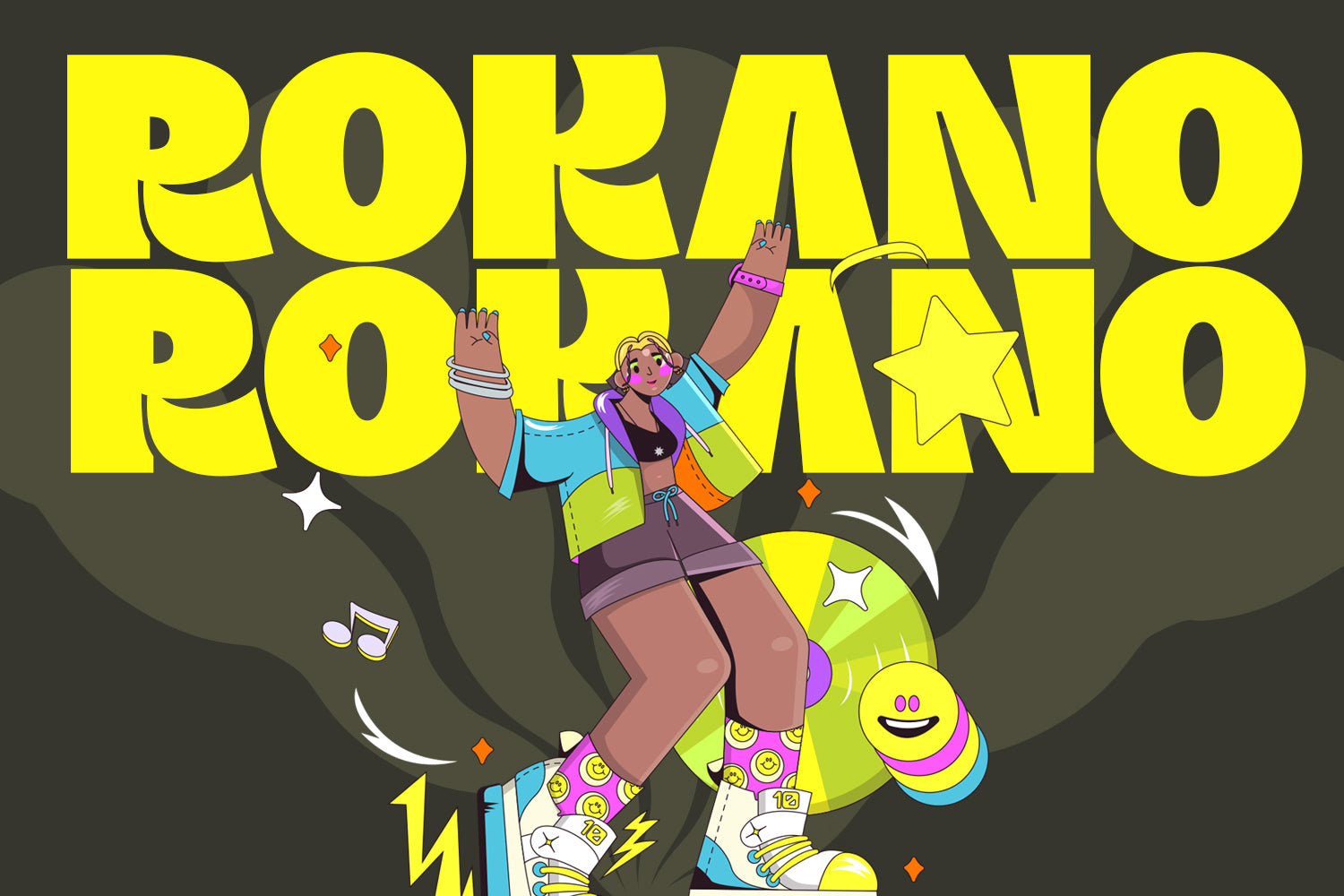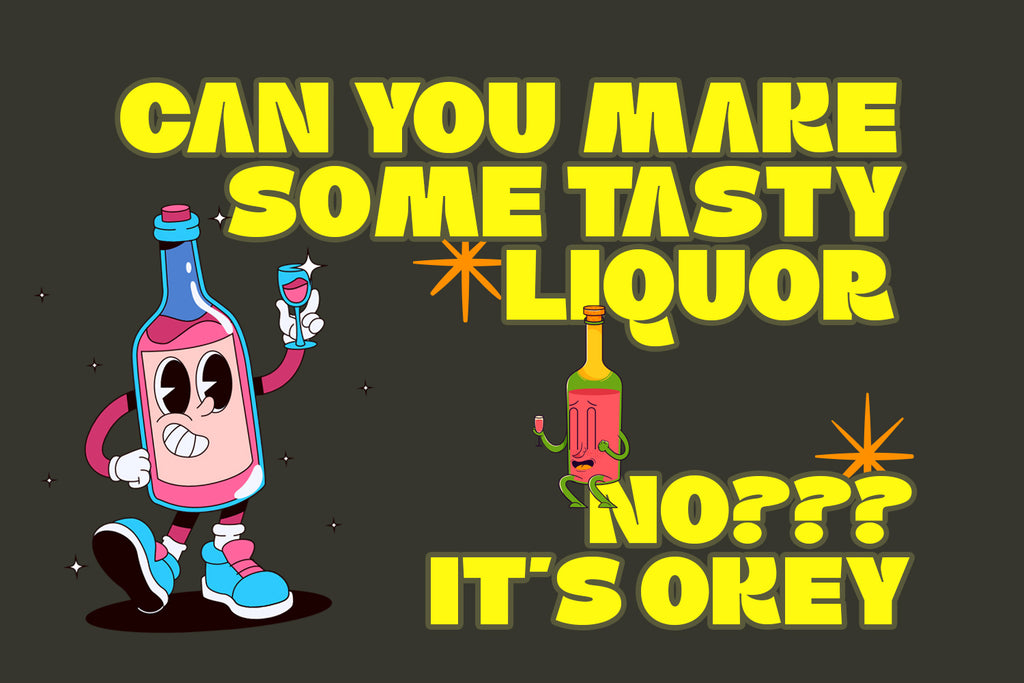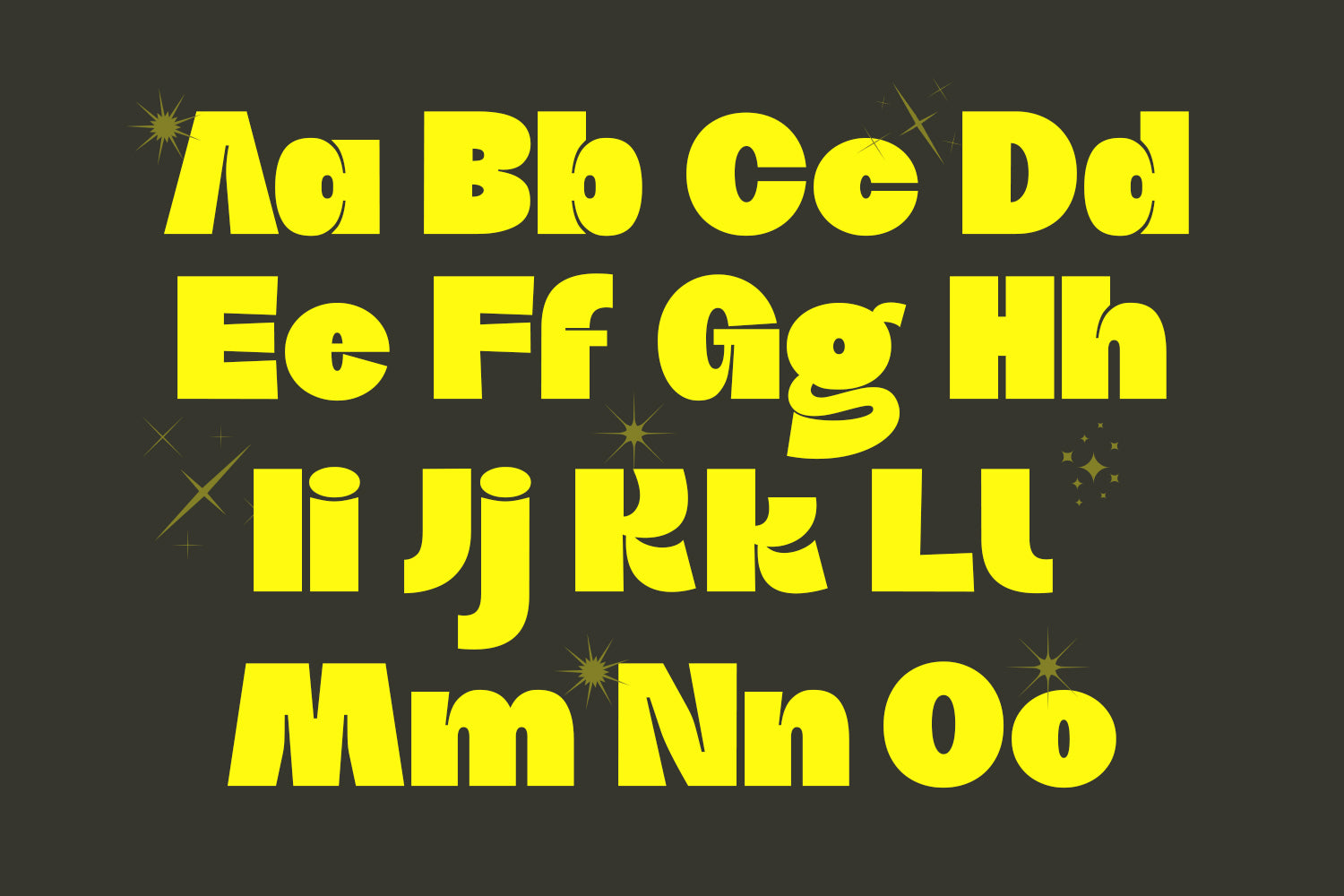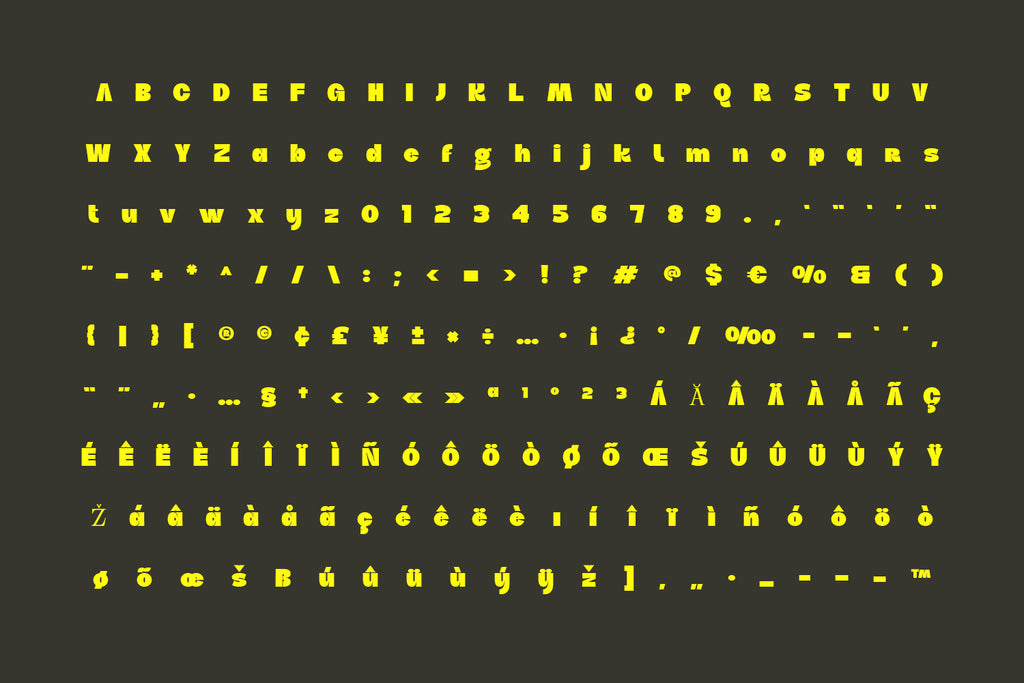
Rokano Funky Typeface
Rokano is a funky, bold display font that brings instant personality and flair to any design. With its playful curves and retro-inspired style, Rokano is perfect for projects that need to stand out and make a statement.
Whether you're designing logos, posters, album covers, merchandise, or social media graphics, Rokano adds a creative and energetic vibe that grabs attention. It's also an excellent choice for branding, helping businesses express a fun, modern, and youthful identity.
Use Rokano for headlines, packaging, signage, or anything that needs a bold, funky twist. Its versatility and charm make it a great addition to any designer's toolkit.
Bring your brand to life with Rokano—where funky meets functional.